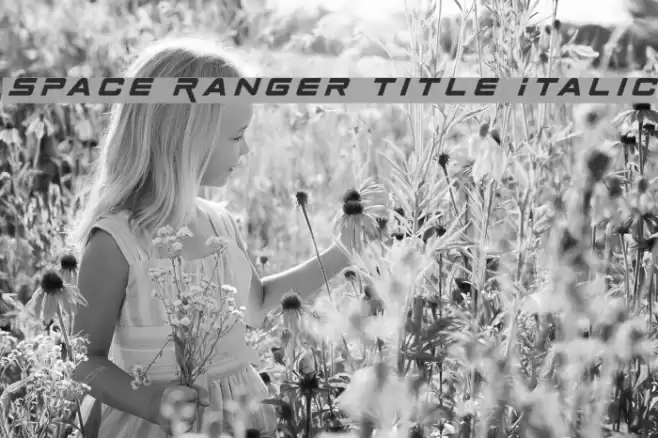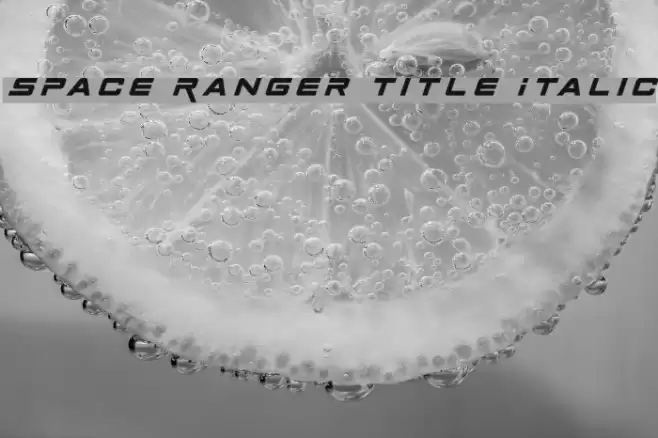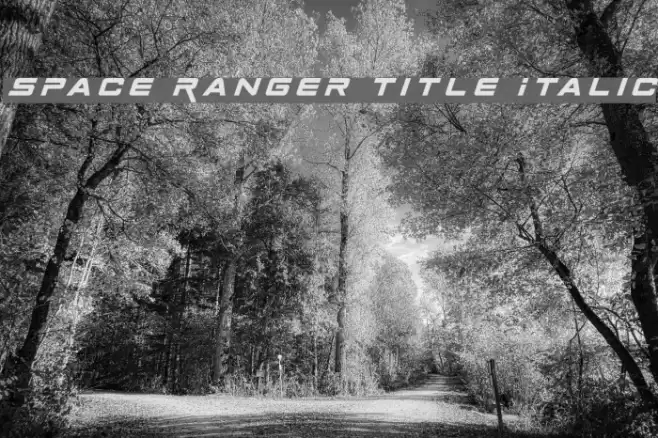
Space Ranger Title Italic Font
Space Ranger Title Italic Description
This font features a futuristic and dynamic design with a distinct italic slant, giving it a sense of motion and speed. The characters are bold and angular, with sharp edges and a geometric structure that evokes a sense of modernity and technology. The uppercase and lowercase letters maintain a consistent style, with the lowercase being slightly more compact. Numbers and special characters are designed to match the overall aesthetic, ensuring uniformity across all elements. The font's boldness and unique style make it ideal for projects that require a strong visual impact.
A bold, italic, futuristic font with angular and geometric design from Uncategorized fonts.
- Proposed Projects: Ideal for sci-fi themed designs, video game titles, technology branding, and futuristic posters.